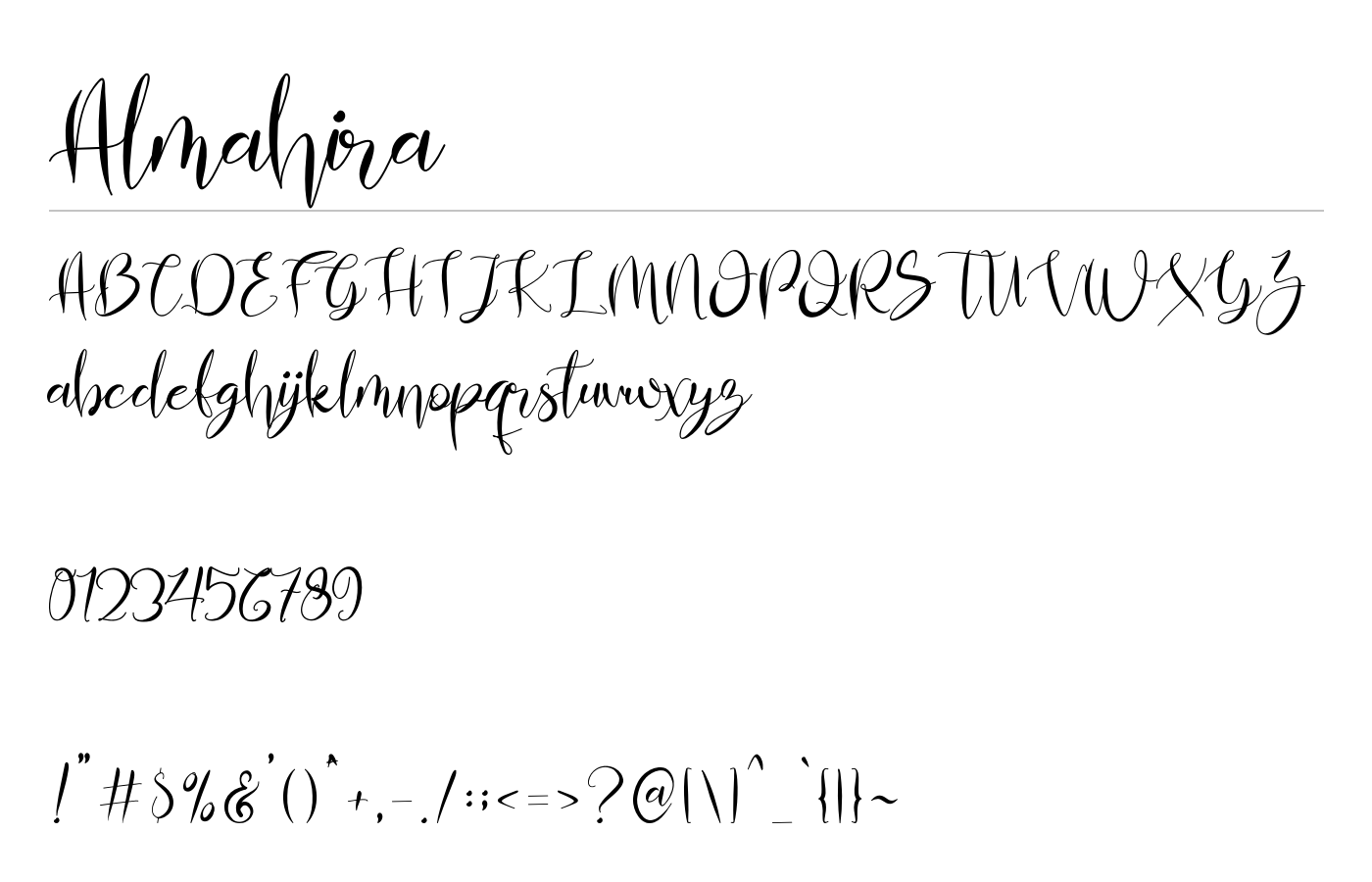
Almahira is an elegant, handwritten script font with a delicate and flowing style that features tall, slender letterforms and subtle variation in stroke thickness. Its graceful curves and refined details give it a sophisticated, artistic feel, making it perfect for wedding invitations, branding, and stylish editorial designs. This font shines in projects that seek a personal, feminine touch with a modern yet timeless charm.
Almahira Font
About Almahira Font
| Font family | Almahira Font |
| Designer | Rometheme |